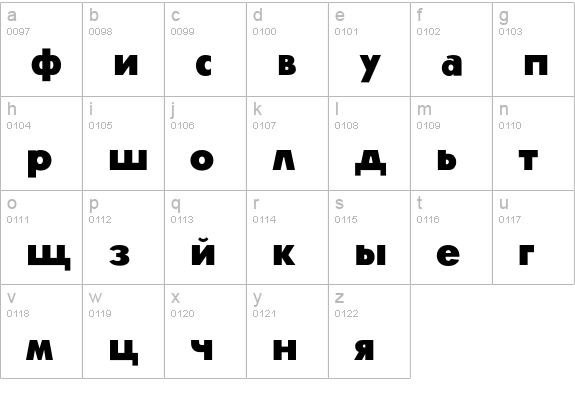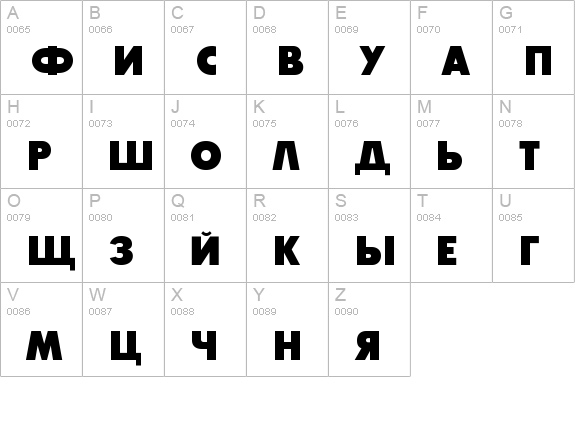
GlasnostExtrabold is a bold and impactful display font that demands attention with its strong and distinctive presence. Its thick and sturdy letterforms exude confidence and modernity, making it ideal for headlines, posters, and branding projects that require a bold statement. The font's sharp edges and clean lines give it a contemporary and edgy look, perfect for making a bold statement in any design. What sets GlasnostExtrabold apart is that it is not only visually striking but also comes with the added benefit of being free for personal and commercial use. You can freely download this powerful font at FontsMarket.com, where it is readily available for all your creative needs. With GlasnostExtrabold, you can instantly elevate your designs and make a lasting impression with its bold and impactful aesthetic.